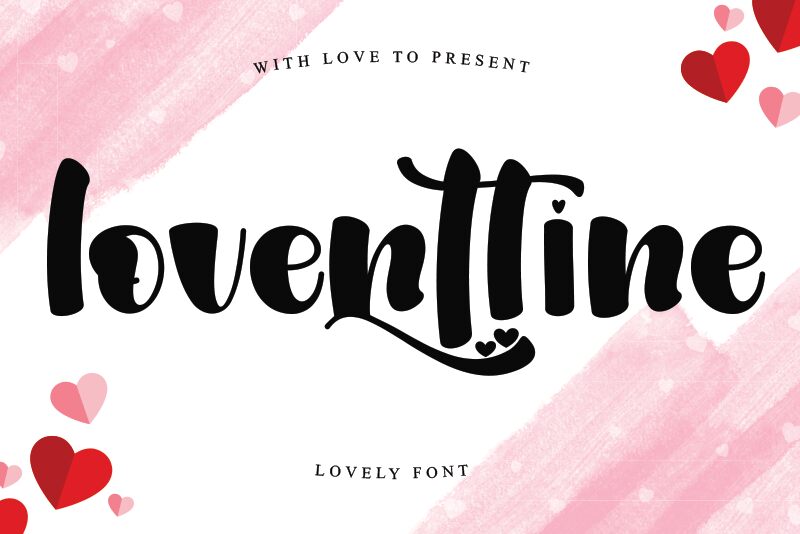
Loventtine, a bold and captivating font designed by Harjuno Kristanto, brings a touch of elegance to any project.
Its smooth brush style adds a sense of fluidity and gracefulness, making it perfect for romantic wedding invitations or heartfelt love letters. With its bold weight, this font exudes confidence and can be used for powerful headlines or eye-catching logos.
Whether you're creating an enchanting book cover or designing a sophisticated brand identity, Loventtine is sure to leave a lasting impression.